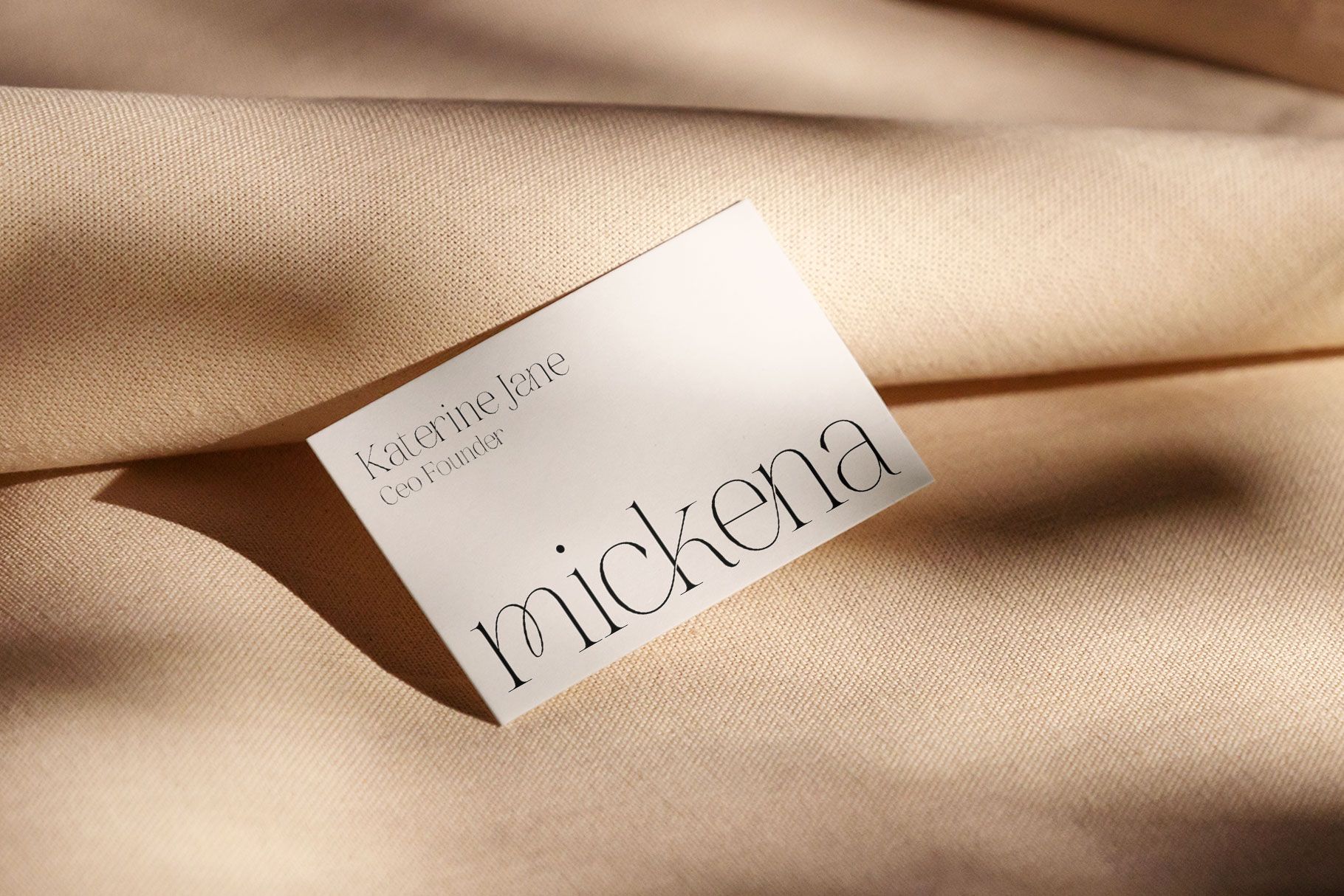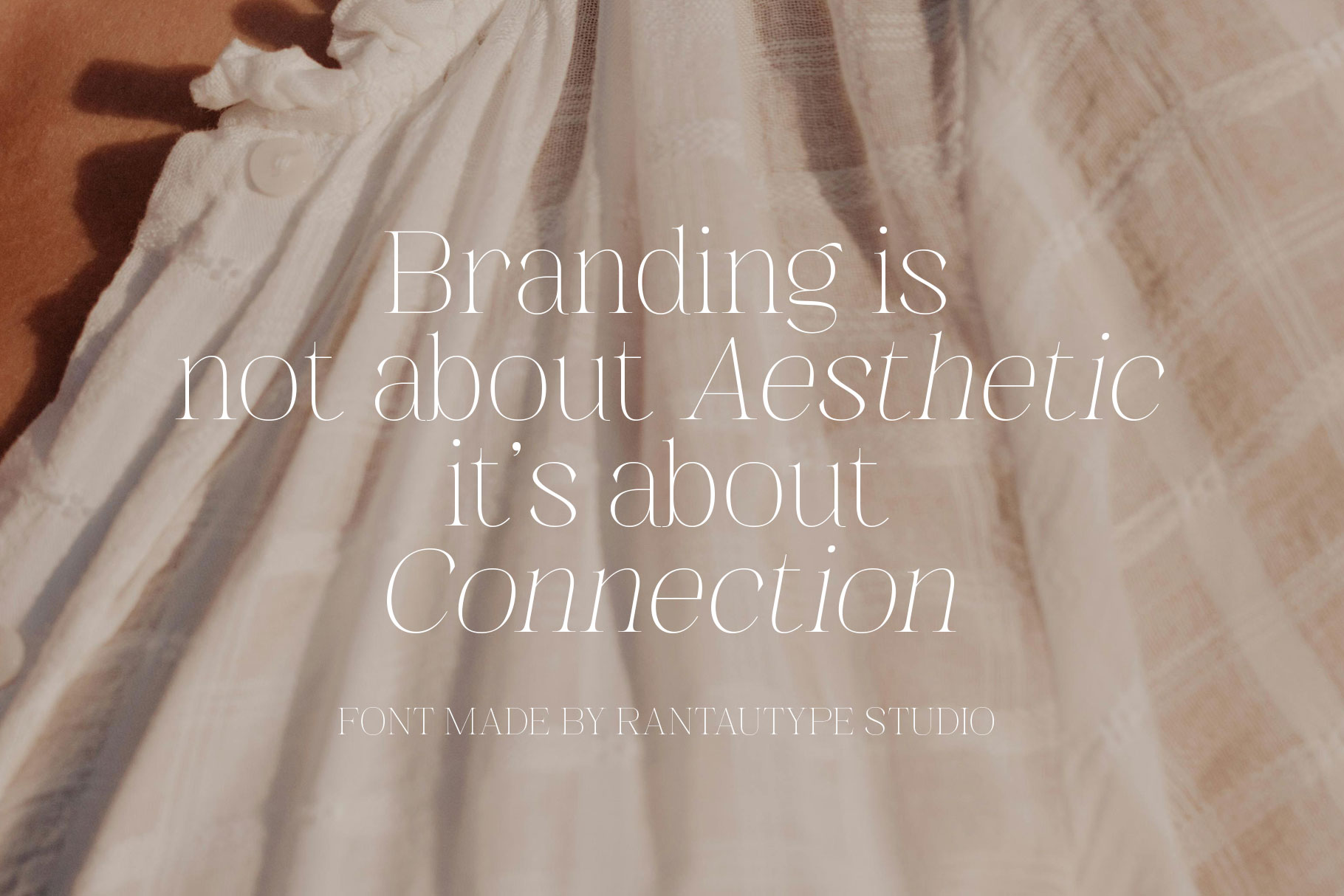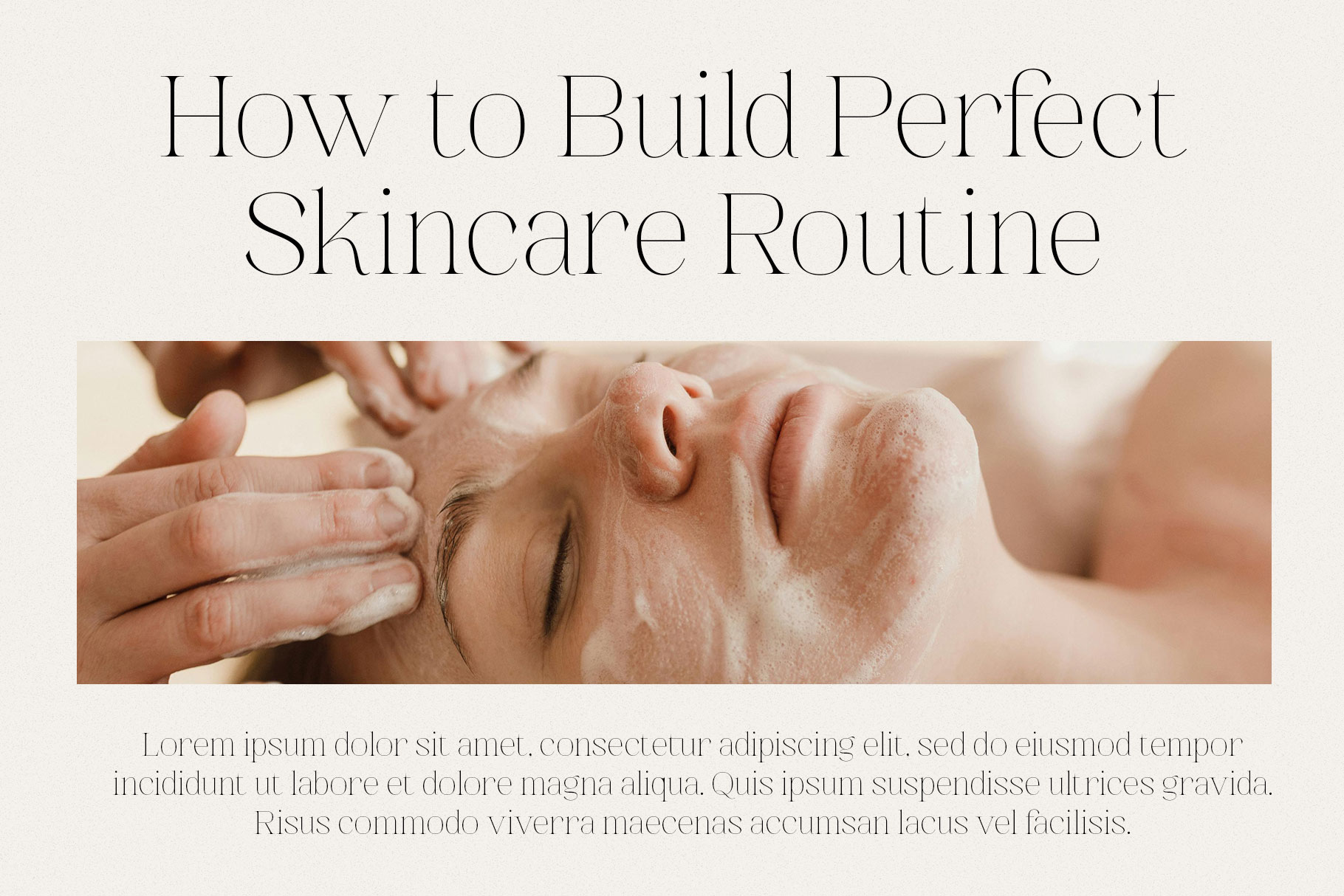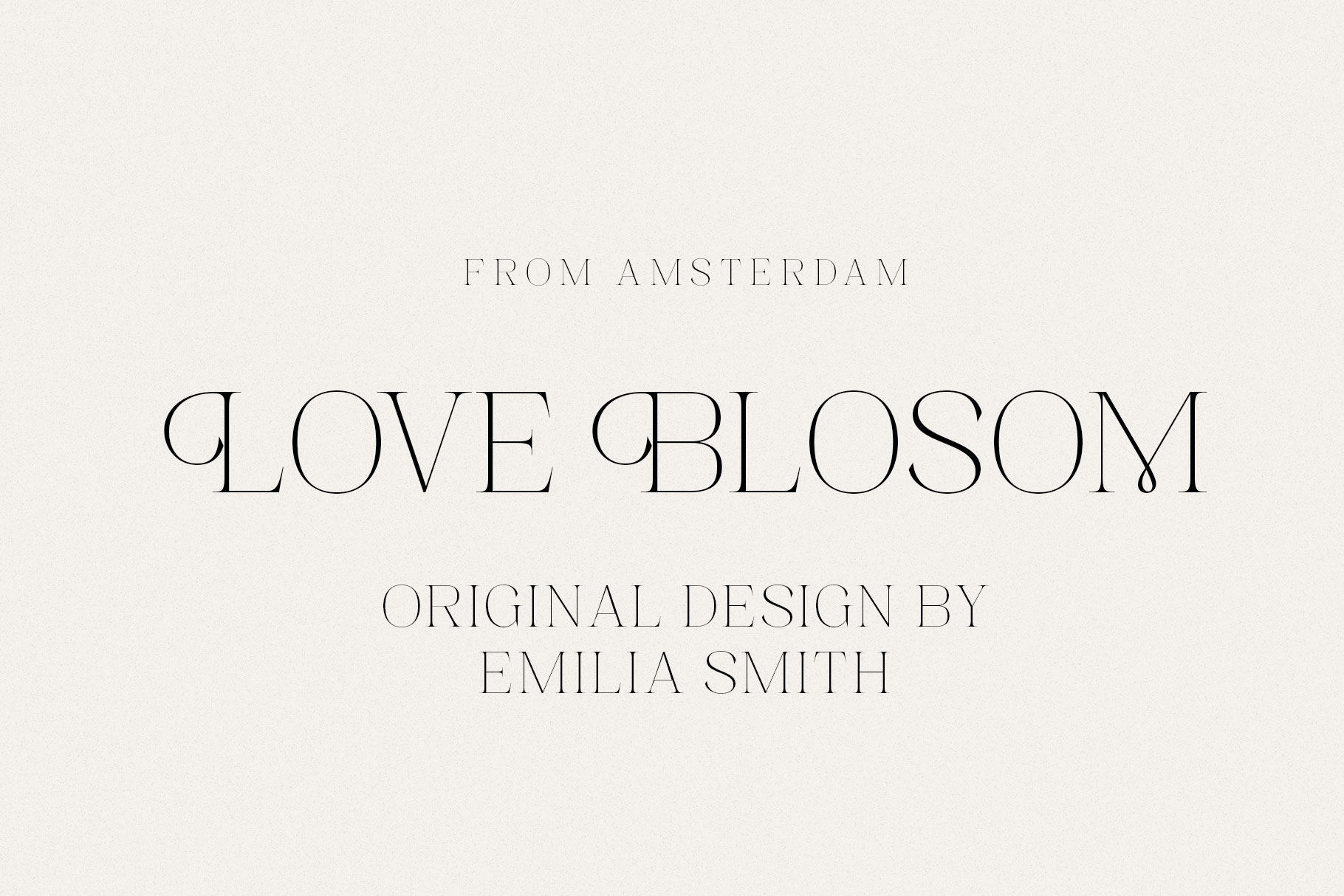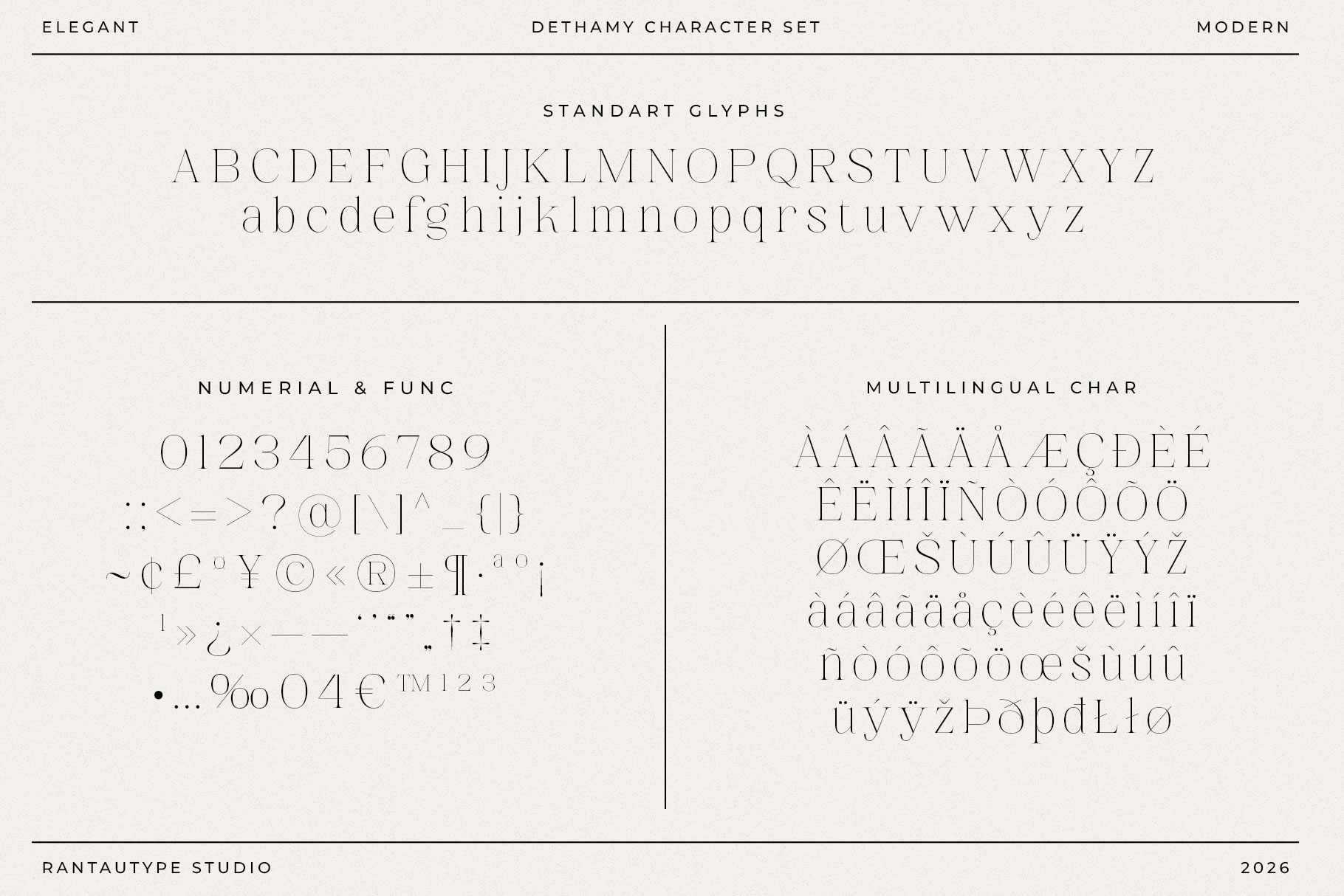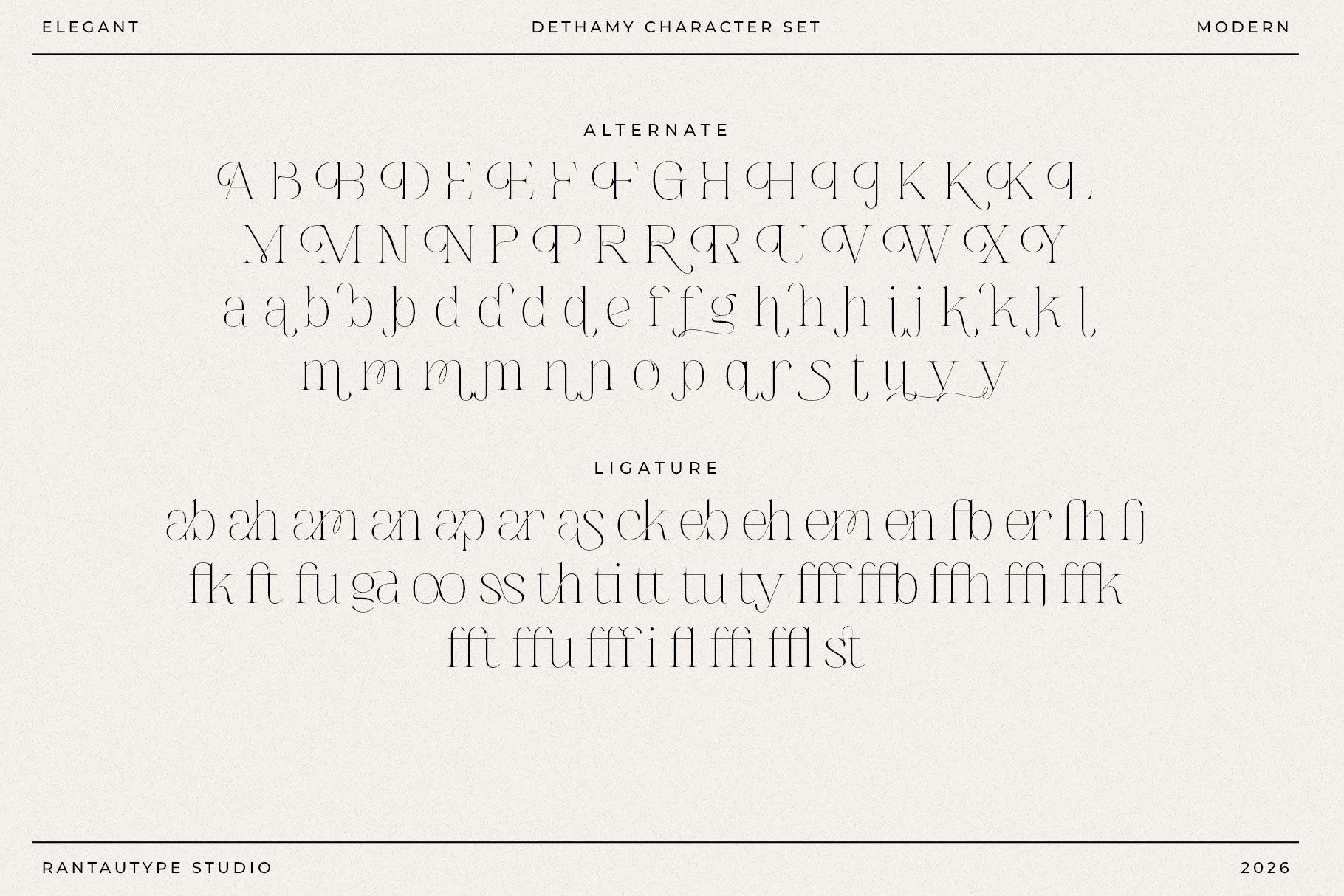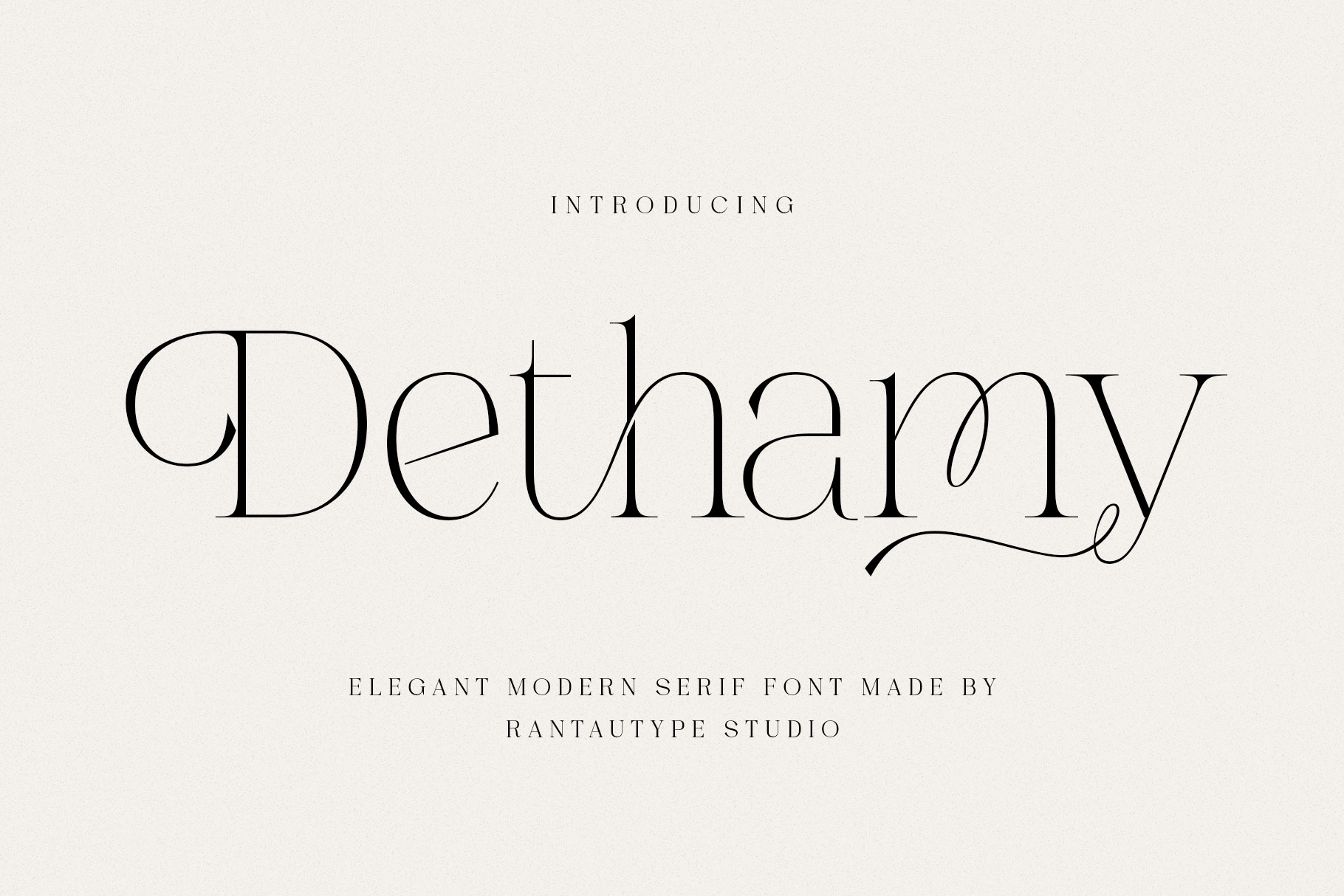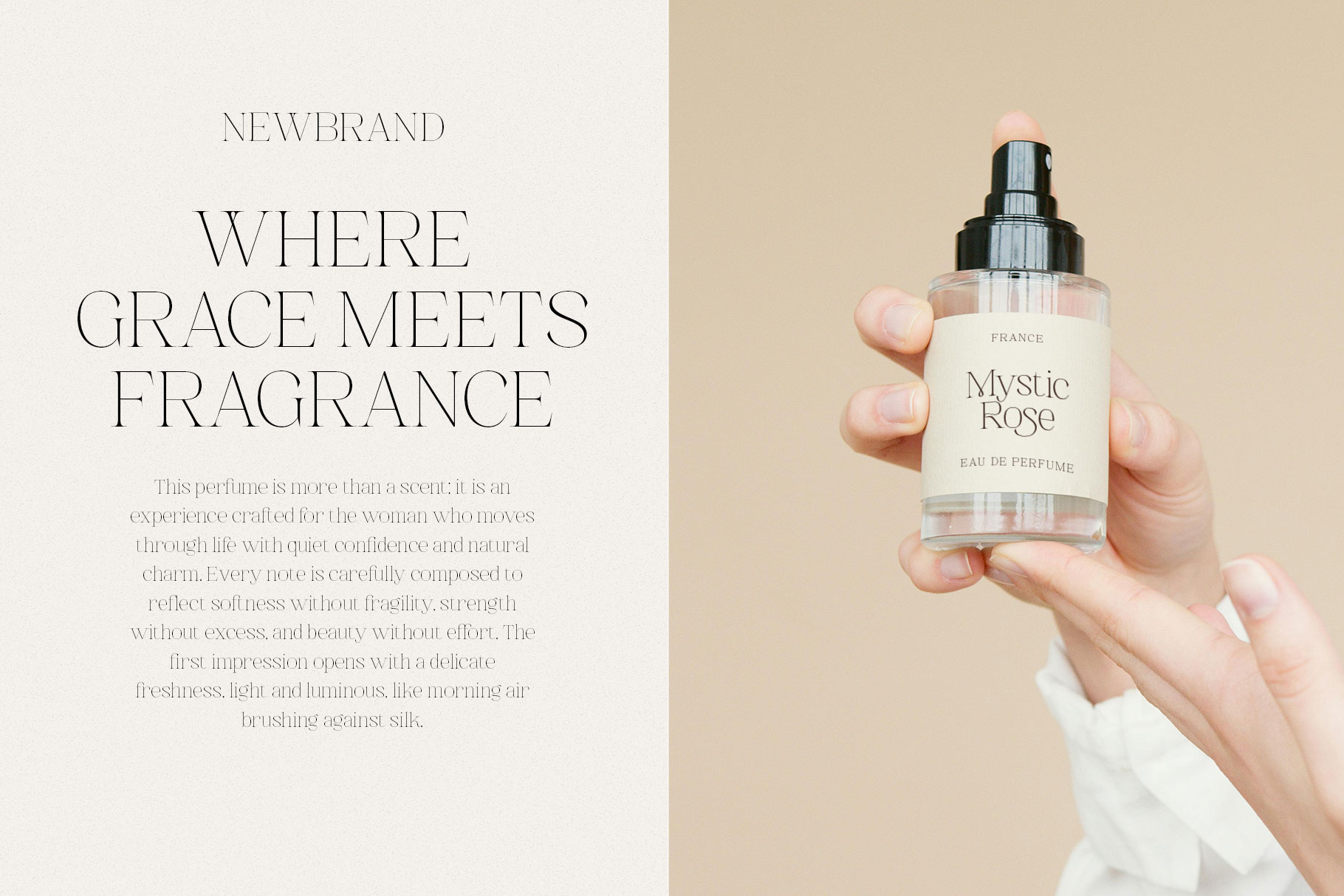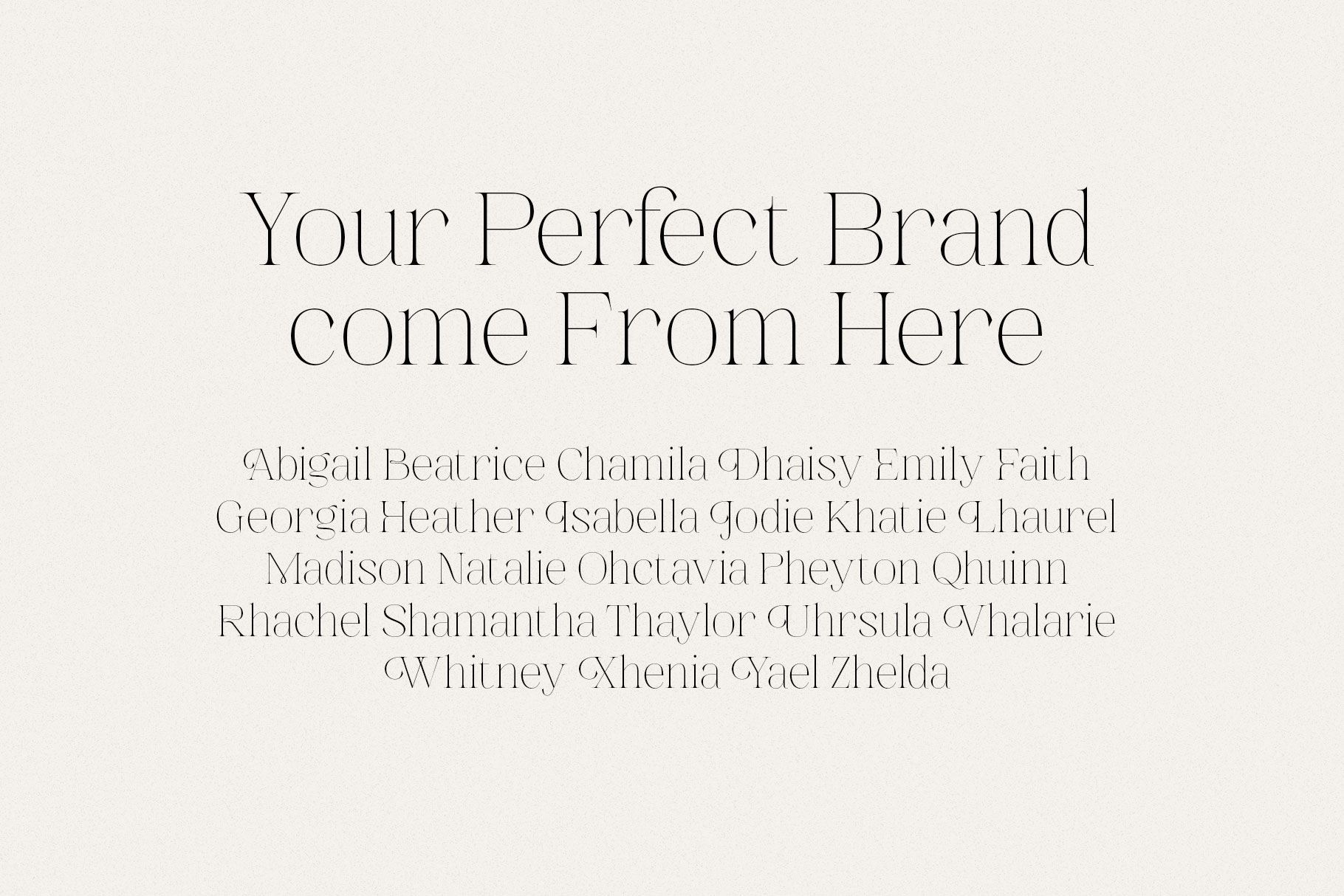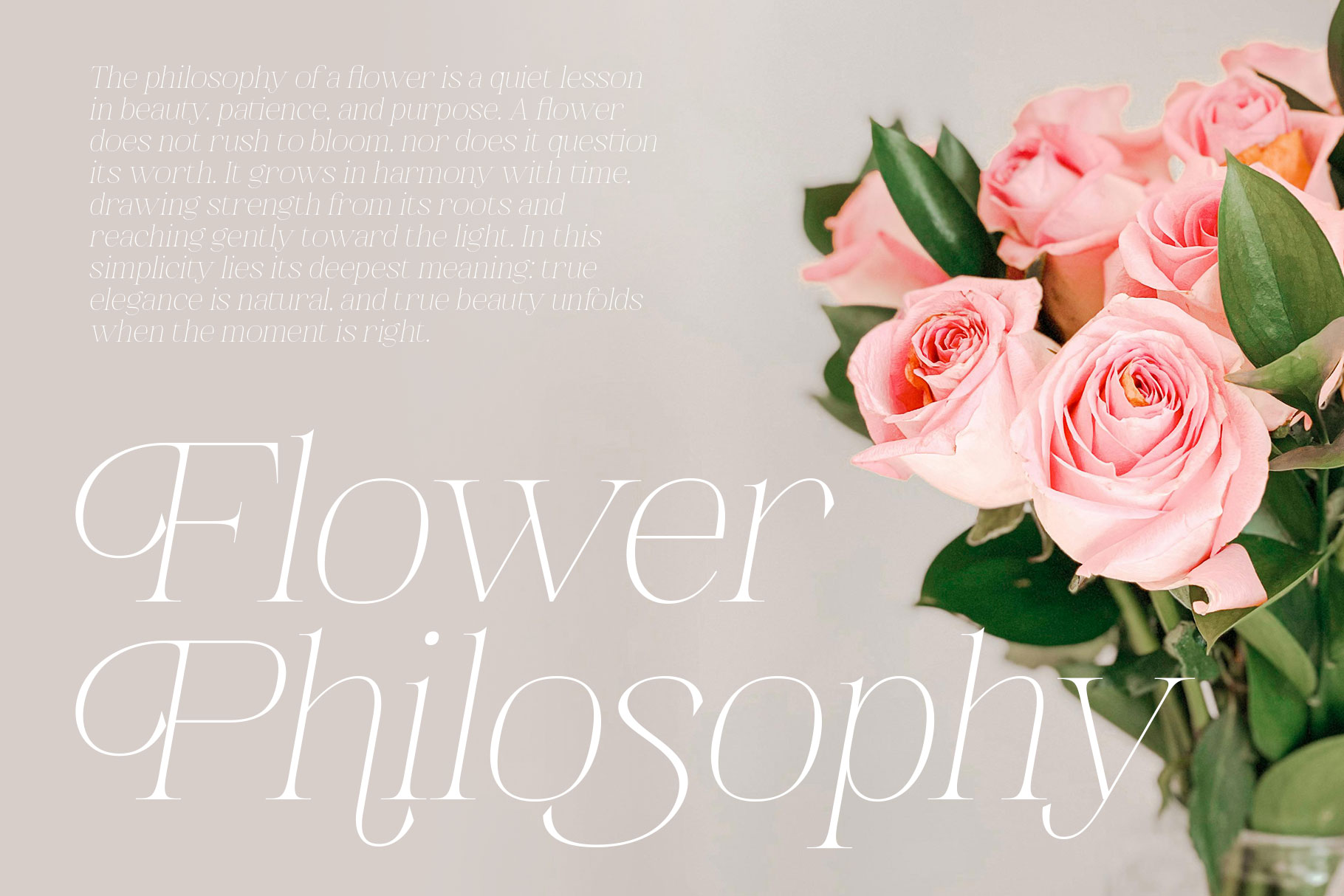
Dethamy Elegant Modern Font
Dethamy is modern font embrace grace and feminity. Dethamy bring professional character to make your design stand out!! Dethamy is a perfectly choice for any creative endeavor, creating, modern, lifestyle design such as logotype, title, cover, branding, invitations, wedding designs, display and magazine, social media posts, advertisements, printed quotes, product packaging, corporate brand, product designs, labels, photography, watermarks, special events and any other project with elegant touch.